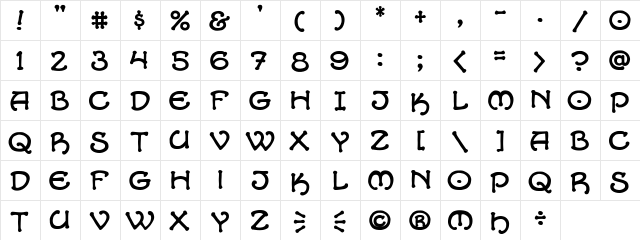
CCAlchemite Regular
Design Context for CCAlchemite Typeface
CCAlchemite is a composed and adaptable typeface that performs quietly and consistently across a wide range of design contexts.